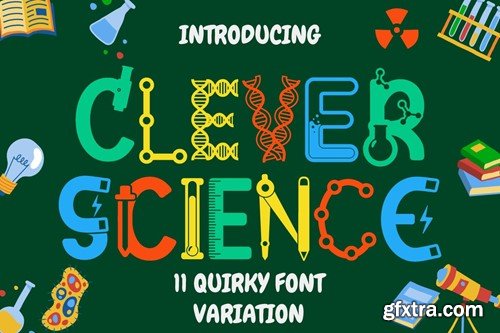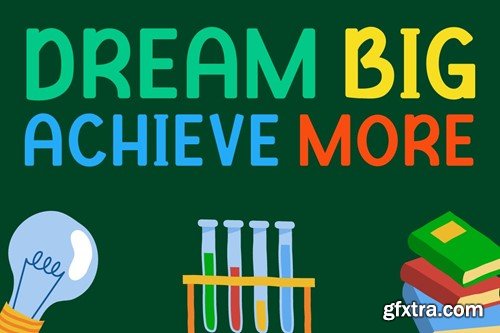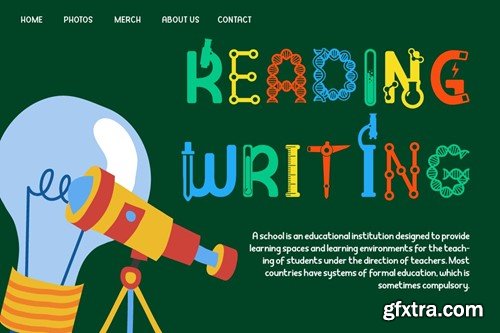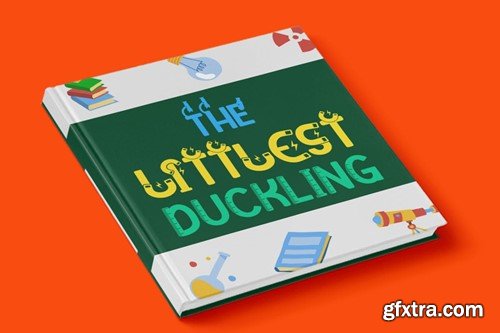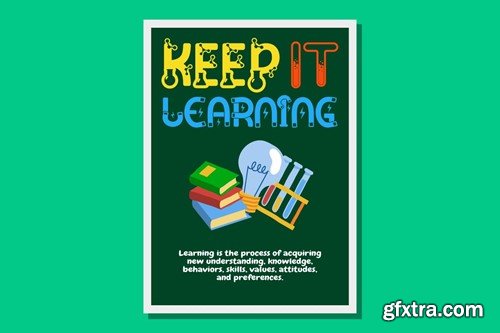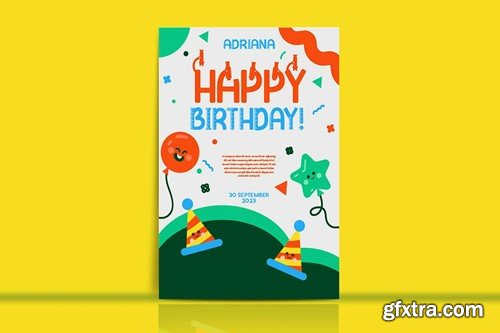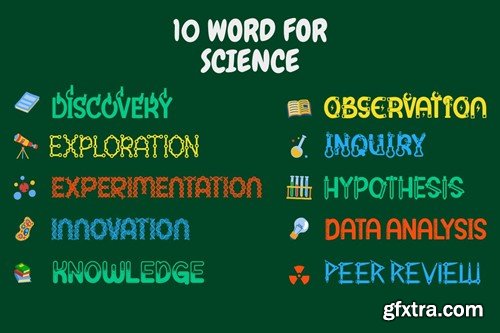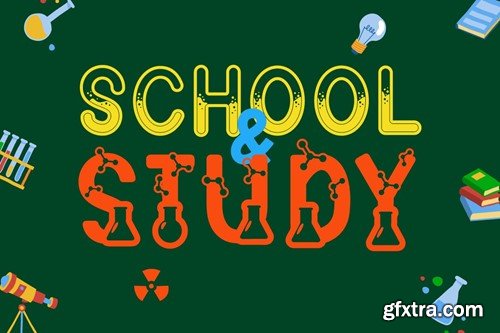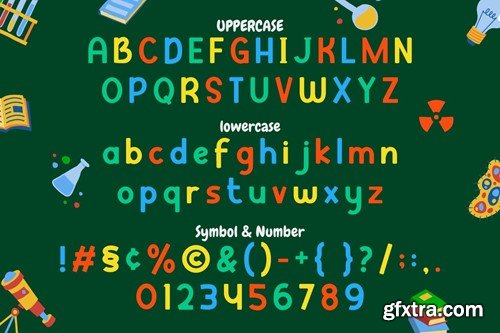
Clever Science – 11 Quirky Education Theme Font LVLX94V
Clever Science – 11 Quirky Education Theme Font Clever Science - 11 Quirky Education Theme Font is a delightful and versatile typeface designed with an education theme in mind. It features quirky, rounded characters with a playful and cheerful appeal at each endpoint. This font can be used either on its own or in combination with its various charming variations. With its 11 distinctive variations, including regular, lab, DNA, electric, tube, ruler, gear, microscope, and more, Clever Science brings a fun and educational atmosphere to your designs. It's perfectly suited for projects related to children, schools, education, cheerfulness, playfulness, and kindergarten themes. This font is an excellent choice for creating logos, crafting projects, invitations, children's activities, birthday cards, greeting cards, stickers, children's books, and kids' magazines. It seamlessly integrates into designs related to children and education. With its playful and educational theme, Clever Science helps you create engaging and charming visuals for young audiences and educational purposes. In Package : Feature : Note : The preview mock-up, element, shadow, image or graphic stock is not included in the download file. It’s only for presentation purpose. Thank you